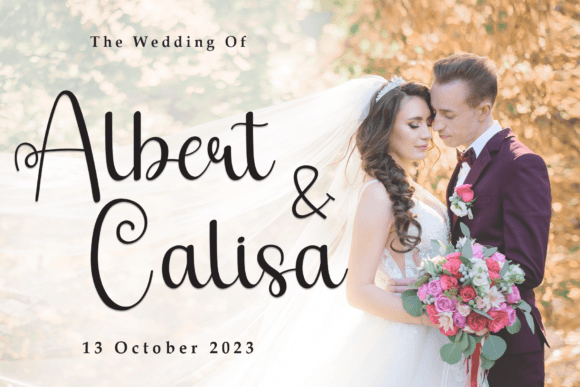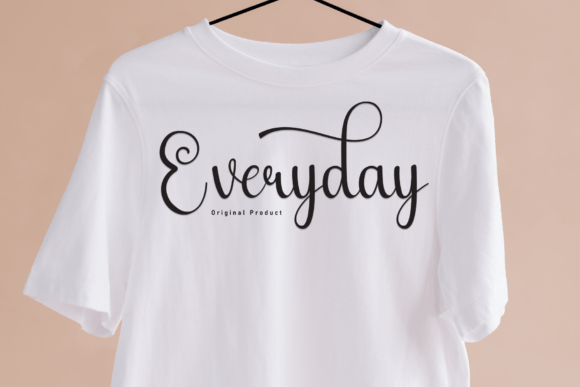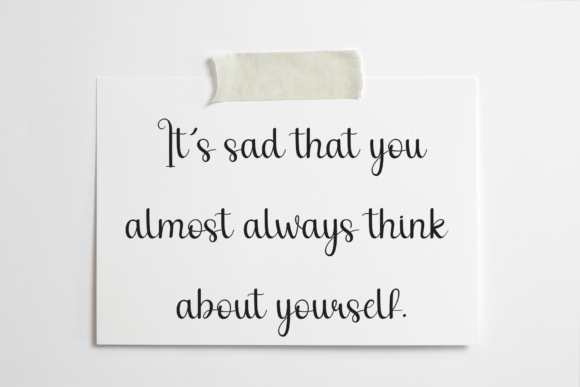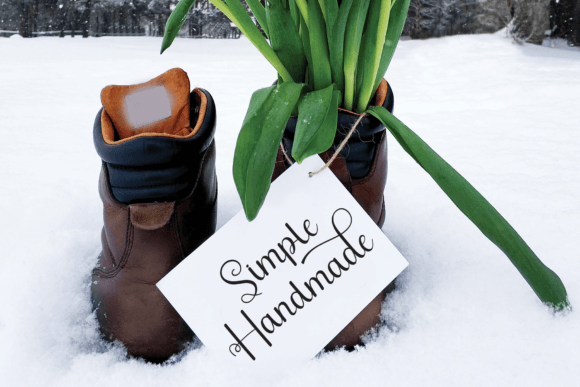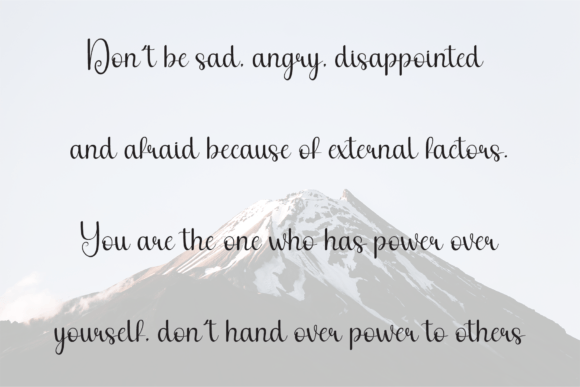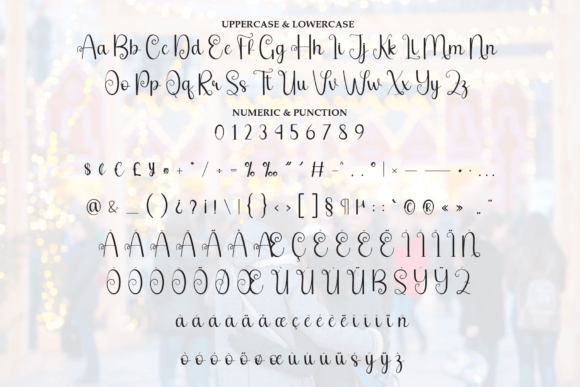
Introducing Christmas Parade Font: A Sweet and Friendly Handwritten Display Font
Are you looking for a font that can add a touch of fun and whimsy to your designs? Look no further than Christmas Parade Font! This sweet and friendly handwritten display font is perfect for creating eye-catching wedding invitations, cards, and other designs that need a playful twist.
What Makes Christmas Parade Font So Special?
Christmas Parade Font is a unique and charming font that is sure to capture the attention of your audience. Its handwritten style gives it a personal and approachable feel, making it ideal for designs that require a touch of warmth and personality. Whether you’re creating wedding invitations, birthday cards, or social media graphics, this font is sure to make your designs stand out.
Key Features of Christmas Parade Font
- Sweet and Friendly Style: Christmas Parade Font has a sweet and friendly style that is perfect for creating designs that are fun and playful.
- Handwritten Display Font: This font is a handwritten display font, which means it’s perfect for headlines, titles, and other design elements that need to make a statement.
- Cute and Fun: Christmas Parade Font is a cute and fun font that is sure to bring a smile to your audience’s faces.
- Versatile: This font is versatile and can be used for a wide range of designs, from wedding invitations to social media graphics.
Christmas Parade Font is perfect for designers and crafters who want to add a touch of personality to their designs. Whether you’re creating digital designs or handmade crafts, this font is sure to inspire your creativity. Here are some ideas for using Christmas Parade Font:
- Wedding Invitations: Use Christmas Parade Font to create beautiful and unique wedding invitations that will set the tone for the big day.
- Birthday Cards: Create personalized birthday cards with Christmas Parade Font and make the birthday boy or girl feel special.
- Social Media Graphics: Use Christmas Parade Font to create eye-catching social media graphics that will grab the attention of your followers.
- Handmade Crafts: Add a personal touch to your handmade crafts, such as scrapbook pages, journal entries, and gift tags, with Christmas Parade Font.
Tips for Using Christmas Parade Font
Here are some tips for using Christmas Parade Font:
- Use it as a Headline Font: Christmas Parade Font is perfect for use as a headline font, where it can add a touch of personality and whimsy to your designs.
- Pair it with Other Fonts: Experiment with pairing Christmas Parade Font with other fonts to create a unique and interesting design.
- Use it in Digital Designs: Christmas Parade Font can be used in digital designs, such as social media graphics, blog posts, and email newsletters.
- Use it in Handmade Crafts: Add a personal touch to your handmade crafts with Christmas Parade Font.
Christmas Parade Font is a sweet and friendly handwritten display font that is perfect for designers and crafters who want to add a touch of fun and personality to their designs. With its cute and playful style, this font is sure to capture the attention of your audience and make your designs stand out. Whether you’re creating wedding invitations, birthday cards, or social media graphics, Christmas Parade Font is the perfect choice.